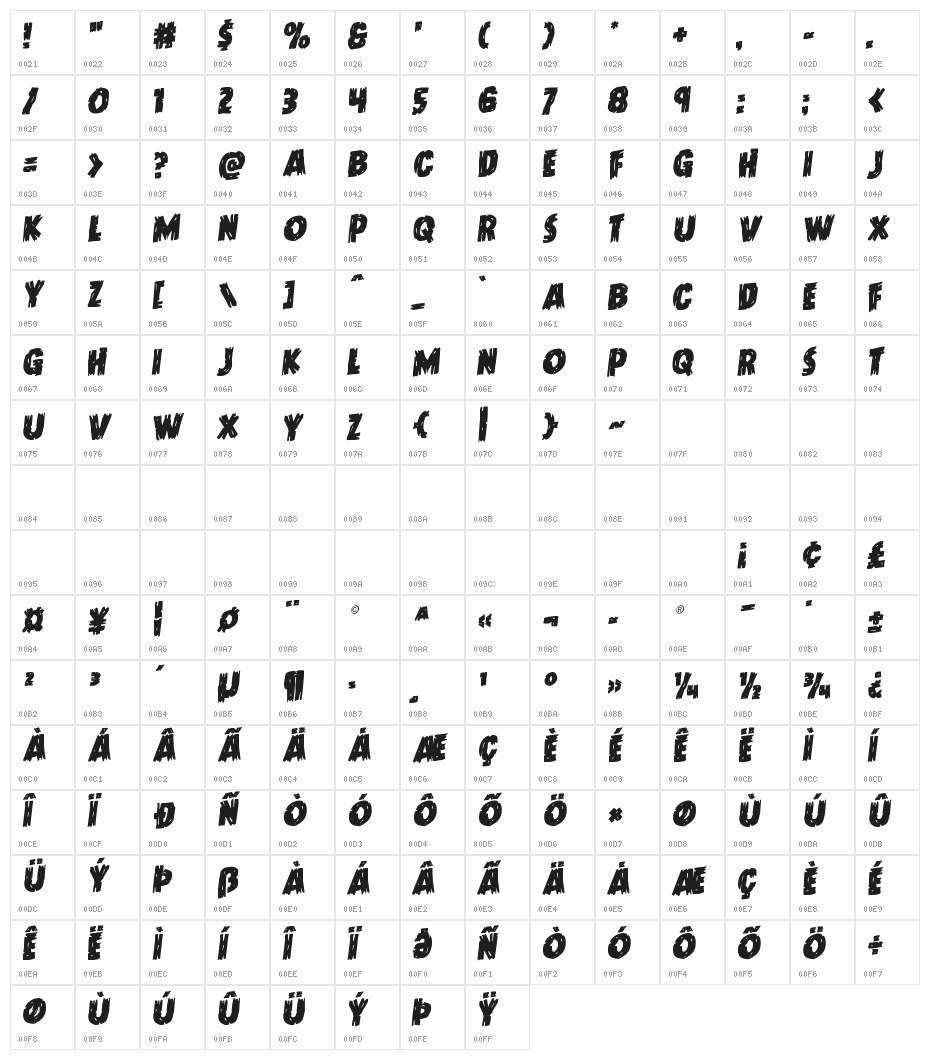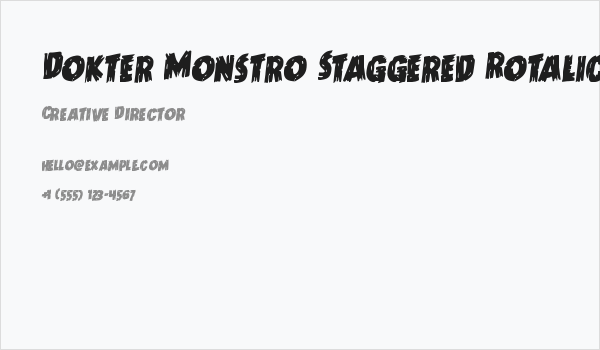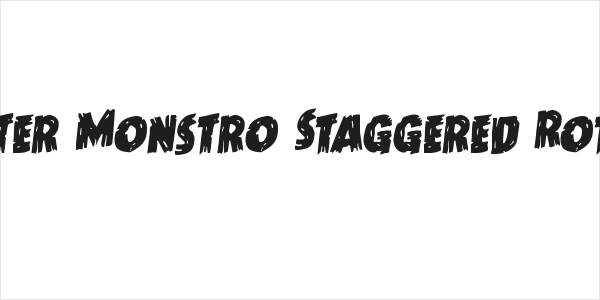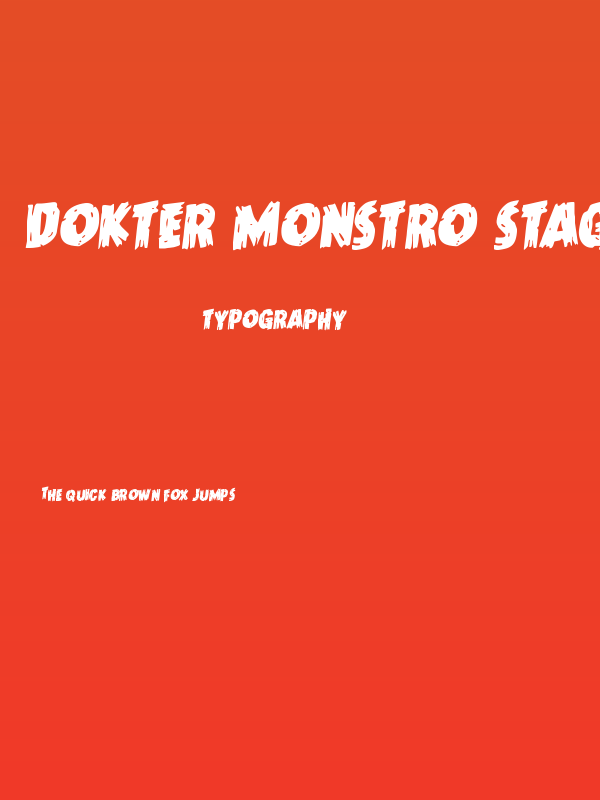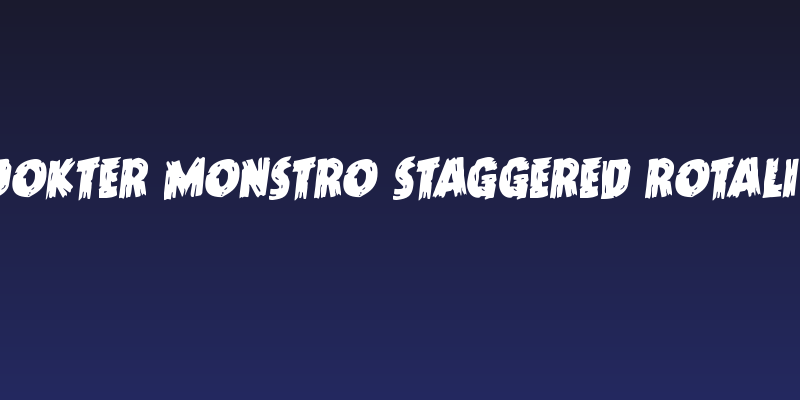
Dokter Monstro Staggered Rotalic Font
Dokter Monstro Staggered Rotalic Description
This font features a bold, jagged style with a dynamic and energetic appearance. The letters are heavily stylized, with sharp edges and irregular shapes that give a sense of movement and intensity. The uppercase and lowercase letters maintain a consistent design, emphasizing a rugged and adventurous aesthetic. Numbers and special characters follow the same bold and edgy theme, making this font suitable for attention-grabbing designs. The overall look is reminiscent of a horror or thriller theme, perfect for creating a dramatic impact.
| Proposed Projects | Ideal for horror movie posters, Halloween event flyers, edgy branding, and video game titles. |